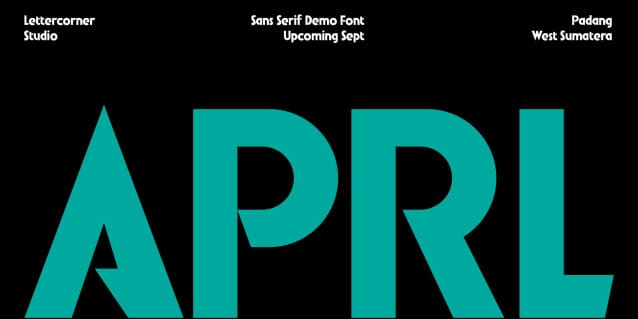
Aprl Font
Aprl Font a bold statement with our latest sans-serif font. With its clean lines and modern appeal, this font is sure to turn heads and leave a lasting impression. Perfect for headlines, logos, and any design that demands attention. It is both functional and stylish, making it a versatile choice for a wide range of design projects.